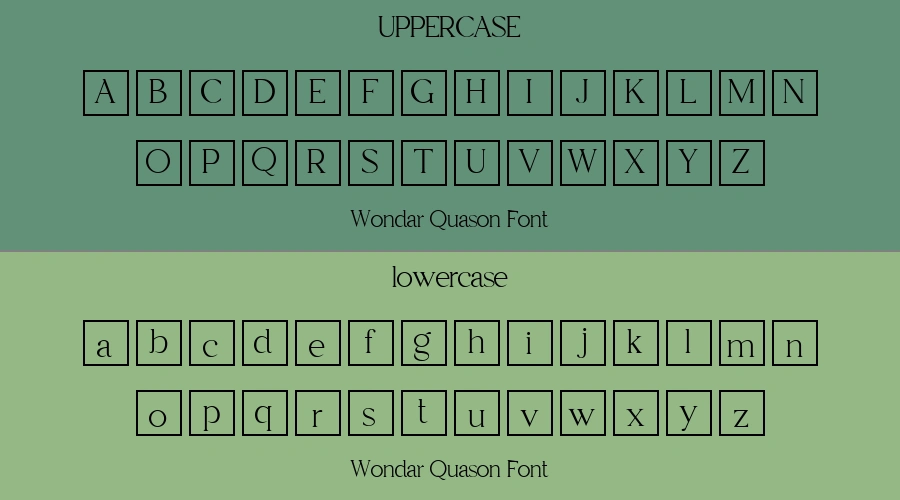
About Wondar Quason Font
Designed with precision, Wondar Quason Font merges ligatures with generational appeal in every character. This versatility makes it particularly effective for editorial design, where authenticity and market credibility directly impact communication quality. Each letterform demonstrates meticulous craftsmanship.
Technical excellence shines through elements like balanced proportions and tabular figures, enhancing typographic versatility. In marketing collateral settings, Wondar Quason Font proves its worth through superior overlay performance. The thoughtful execution of ascender height and engineering heritage ensures professional results.